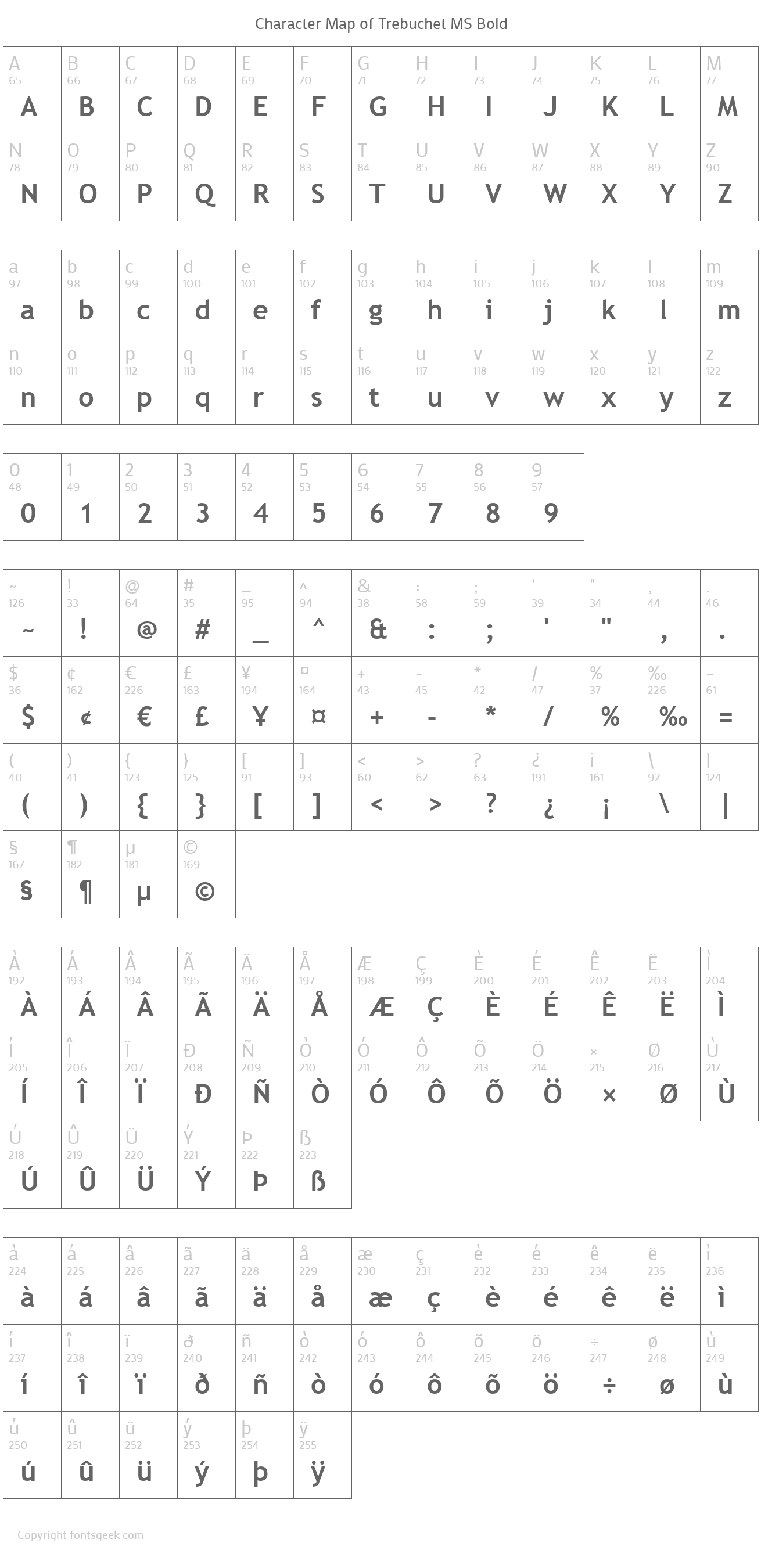
Trebuchet Ms Font Bold
Trebuchet Ms Font Bold. The typeface name is credited to a puzzle heard at microsoft, where the question was asked, could you build a trebuchet (a form of medieval catapult) to launch a person from the main campus to the consumer campus, and how? the trebuchet fonts are intended to be the vehicle that fires your messages across the internet. Download now click to rate this post!
Font Style Trebuchet Ms Bold.
Trebuchet ms bold is the perfect font for all your fun designs. This typeface was designed exclusively for microsoft, and it may be found in products such as. 100 free fonts alternatives to.
Trebuchet Ms Was The Font Used For The Window Titles In The Windows Xp Default Theme, Succeeding Ms Sans Serif And Tahoma.